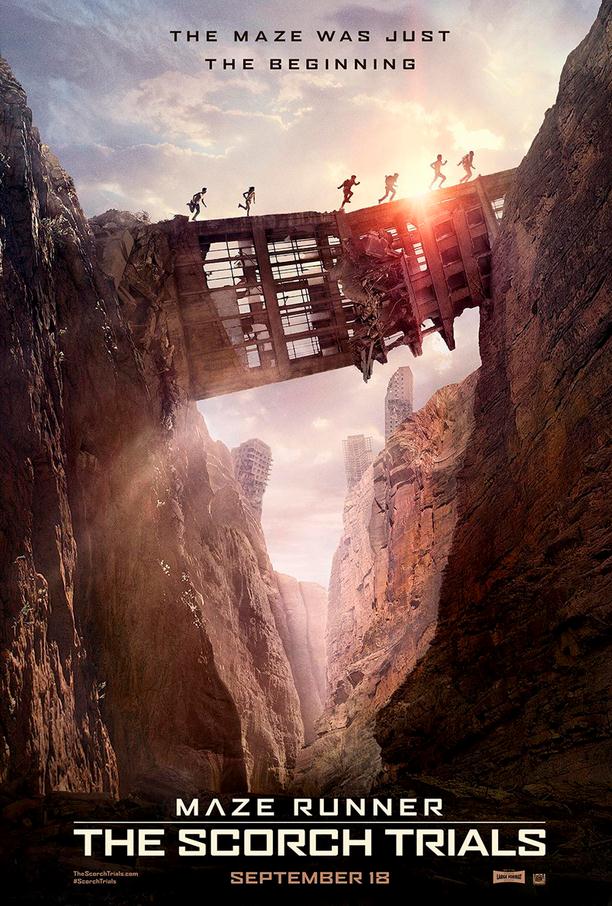
The Scorch Trials Font
Fonts in UseMaze Runner: The Scorch Trials is a 2015 science fiction film and the second installment in The Maze Runner film series. It follows a group of teenagers who must traverse a dangerous, post-apocalyptic wasteland to uncover the truth about their past and save humanity.
Agency FB Bold Extended is the font used for the film title in the poster. It belongs to the square geometric sans serif typeface collection designed by David Berlow for Font Bureau. More details about the font are available here.